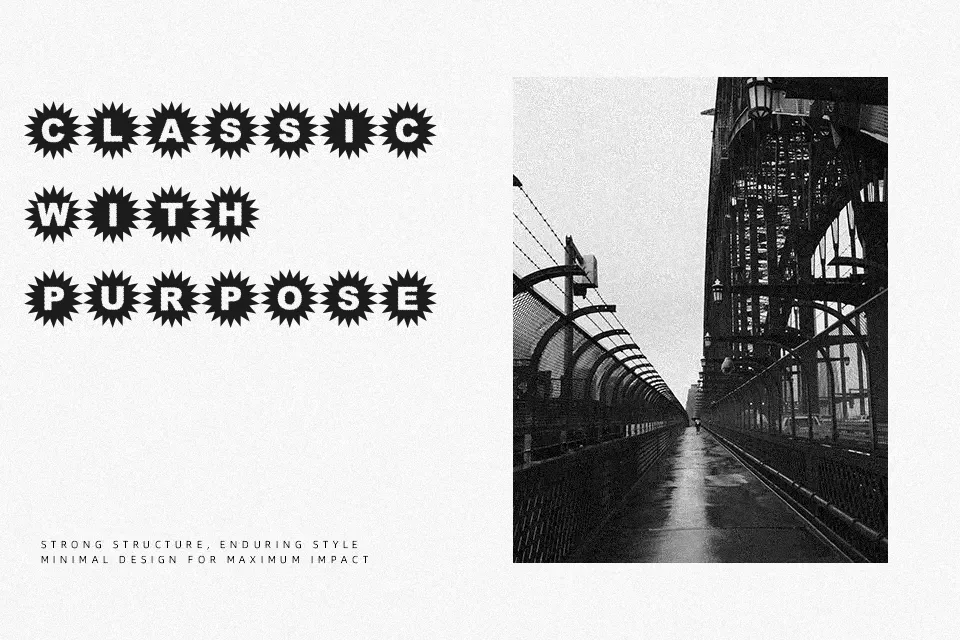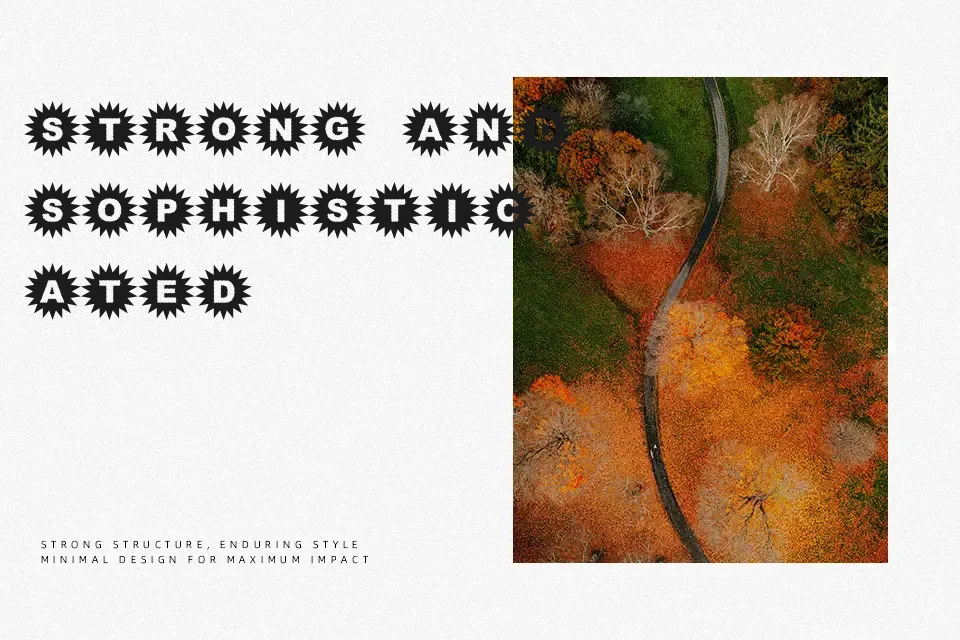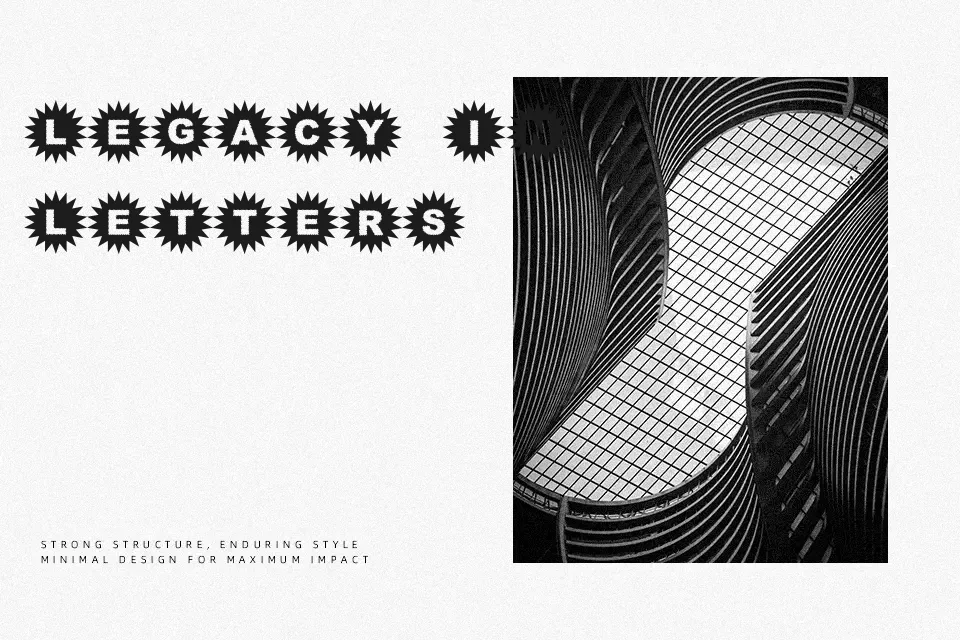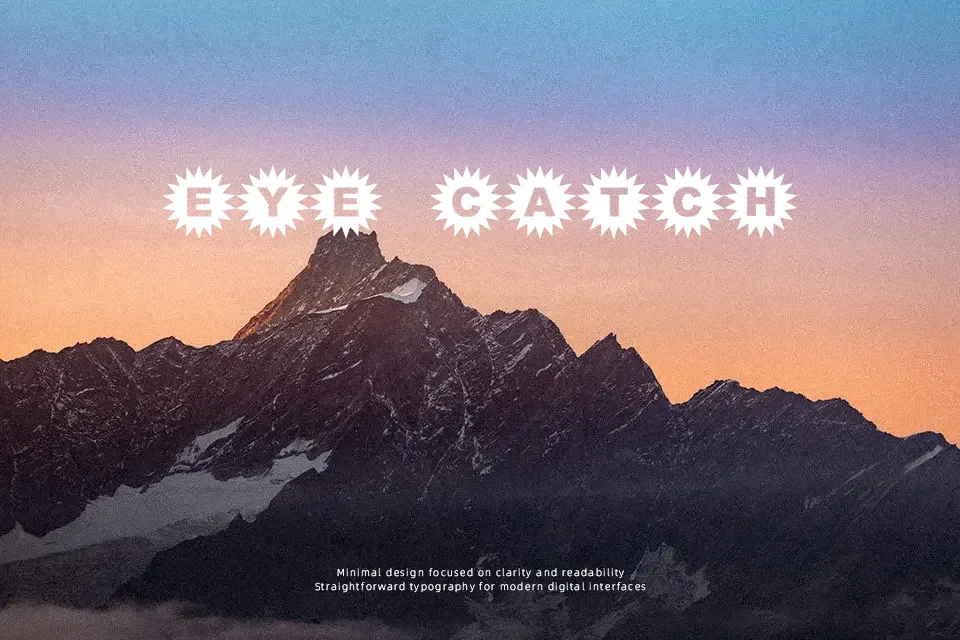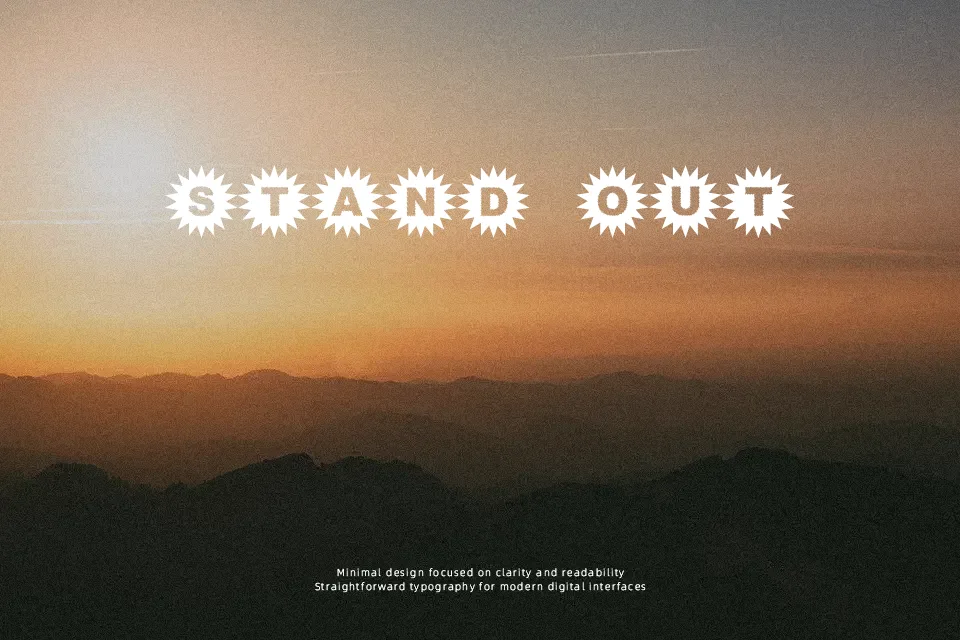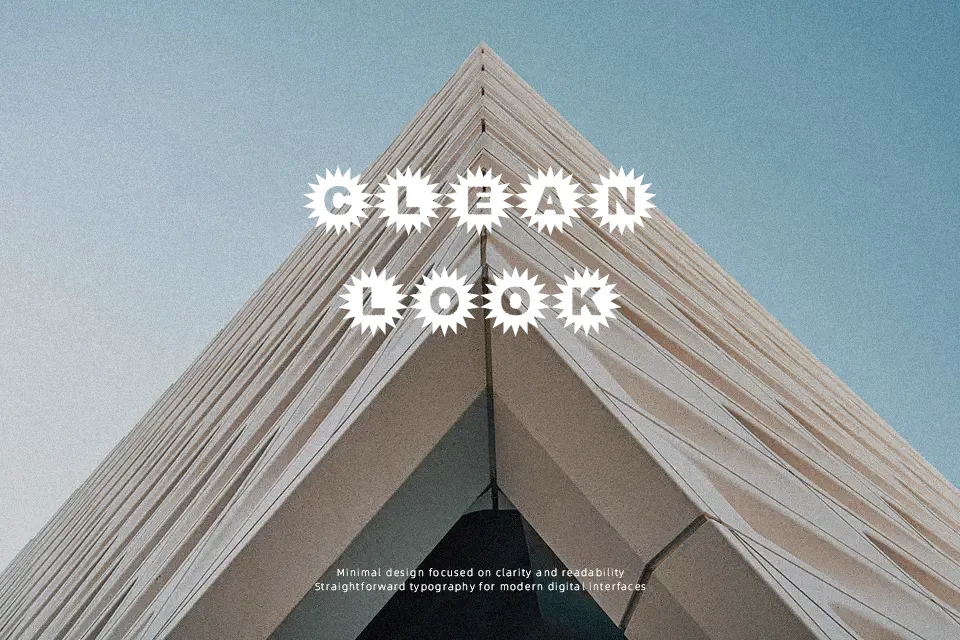
Starbats Font
Built around emblem style geometry, Starbats Font encases heavy character forms inside multipointed star silhouettes with thick enclosing perimeters. The uniform outer contour produces consistent horizontal proportions, while generous spacing prevents the complex radiating points from colliding during composition. At display scales, the contrasting negative letterforms maintain clear recognition across festival posters, celebratory stickers, and themed merchandise headlines. However, the prominent decorative boundaries crowd dense text layouts and drastically reduce legibility in continuous reading environments. The heavy outer framing ensures immediate graphic presence across large banners, making the typeface dependable for punchy isolated titles.
Best For: party invitations, festival banners, celebratory stickers, novelty apparel graphics
Not Ideal For: long body text, mobile user interfaces, corporate document layouts, small caption labels
Perfect for headline, holiday, and kids, with a bold and decorative style.